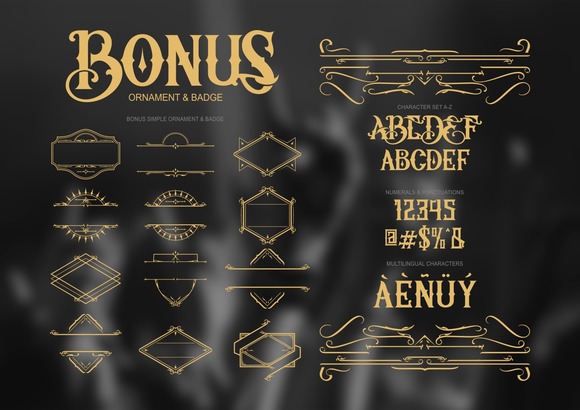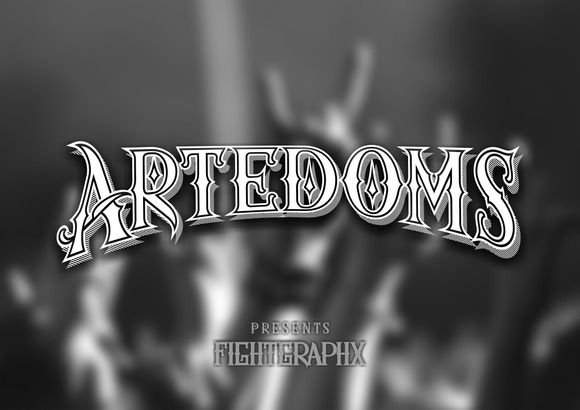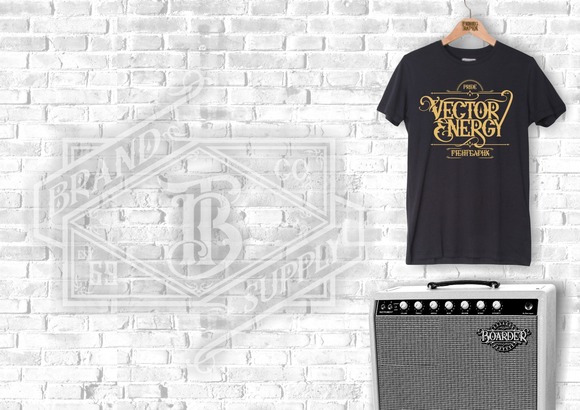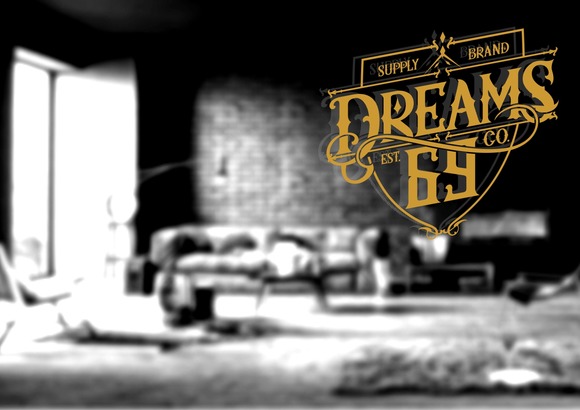
Artedoms Font Family
Artedoms typeface is new font with classy, elegant and vintage feel character set. Artedoms typeface includes a full set of capital and lowercase letters, as well as multi-lingual support, currency figures, numerals, punctuation & bundling with vector bonus, ornaments & badges ( AI and EPS ).
Artedoms is suitable for any project that requires a medieval feel such as logo, wedding invitation, greeting card, poster, clothing, book cover etc.